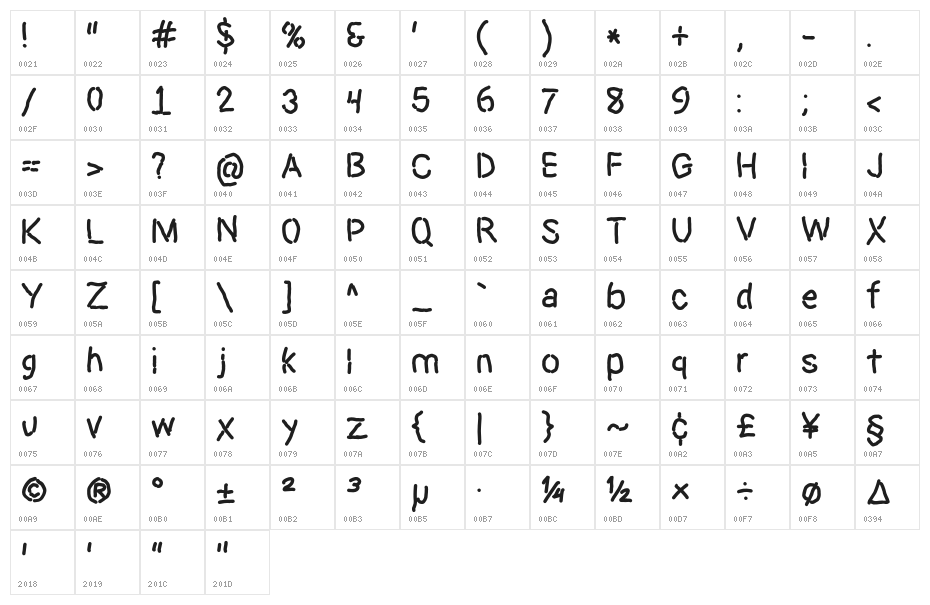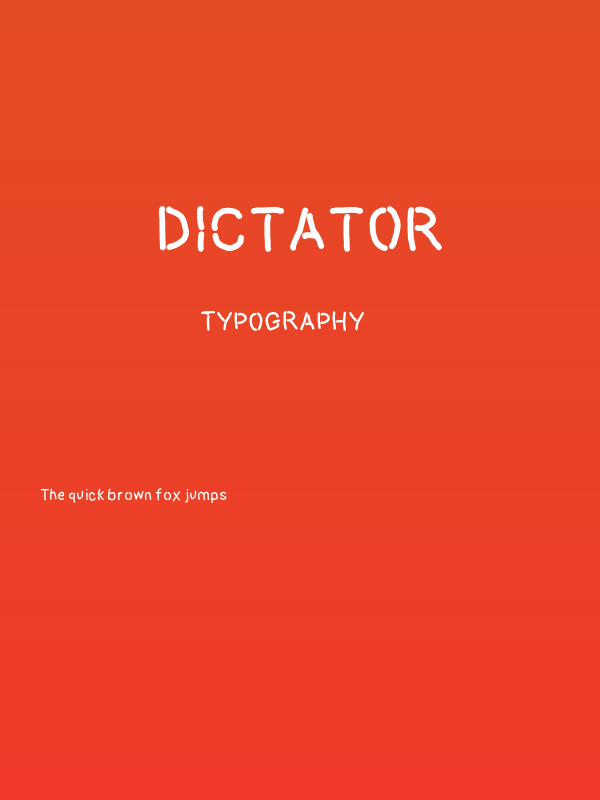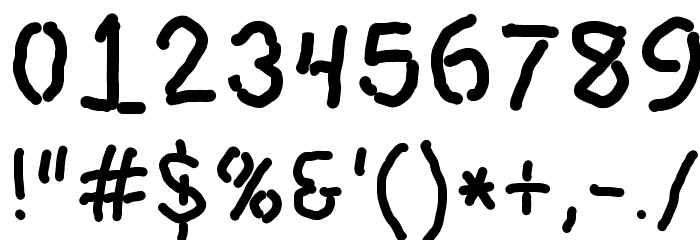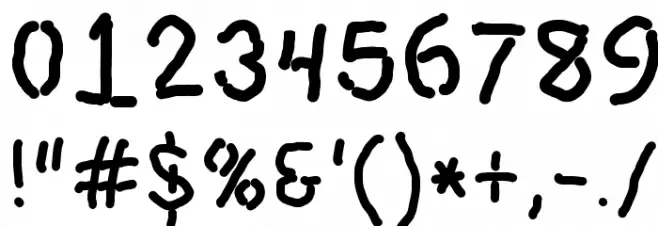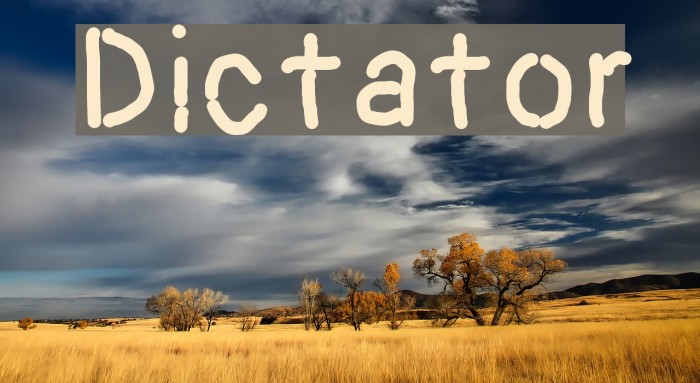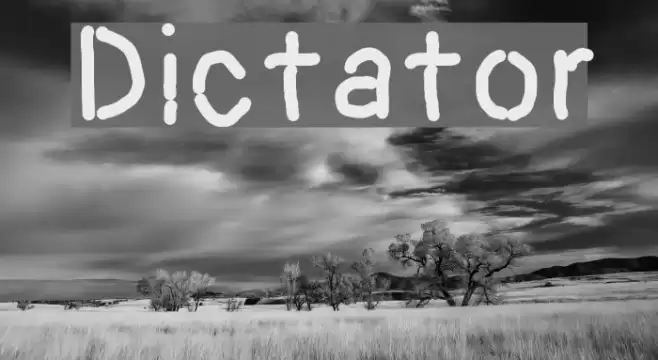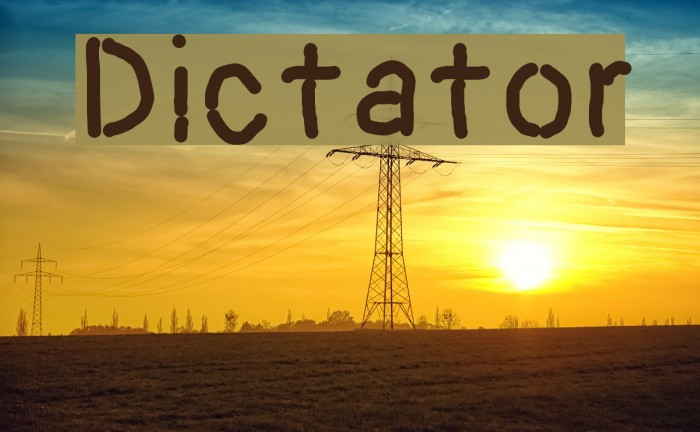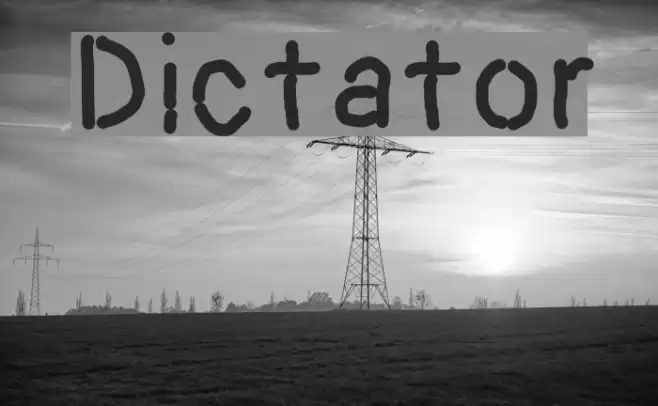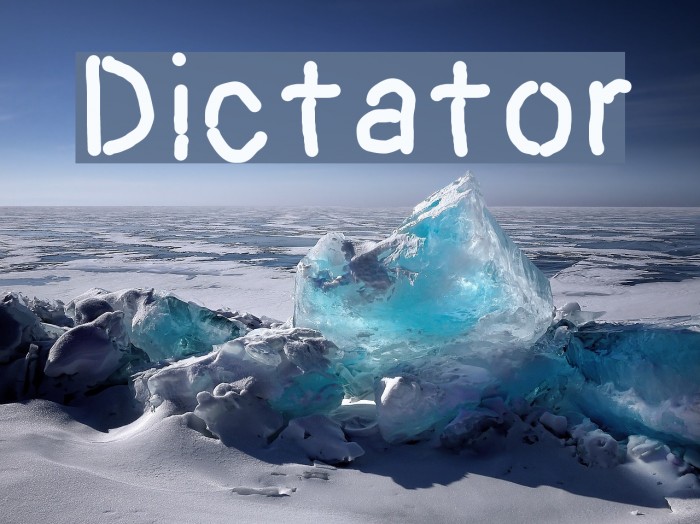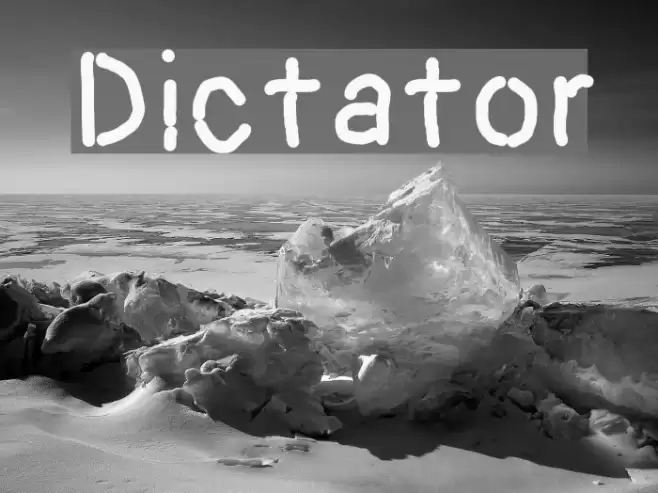
Dictator Font
| Общий стиль | Playful, Casual, Handmade |
| Область применения | Headlines, Logos, Informal Text |
| Рекомендуемые проекты | Great for children's books, casual invitations, playful branding, or any project needing a whimsical touch. |